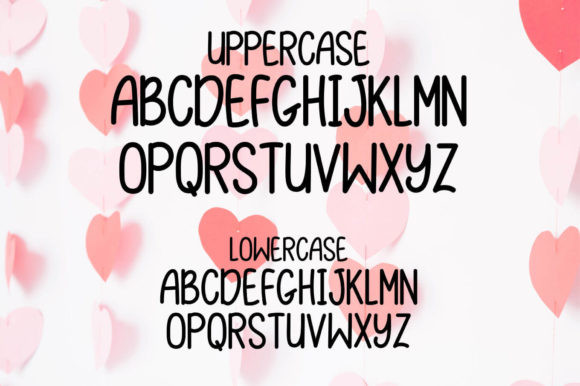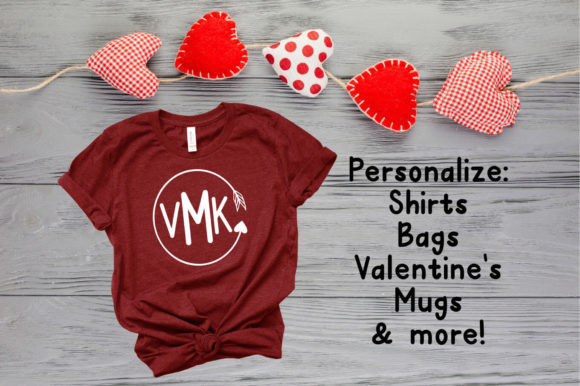
Love Letters Font
Love Letters feels equally charming and elegant. This handwirtten font is the perfect fit for all of your logos, branding, social media, and crafty DIY projects.